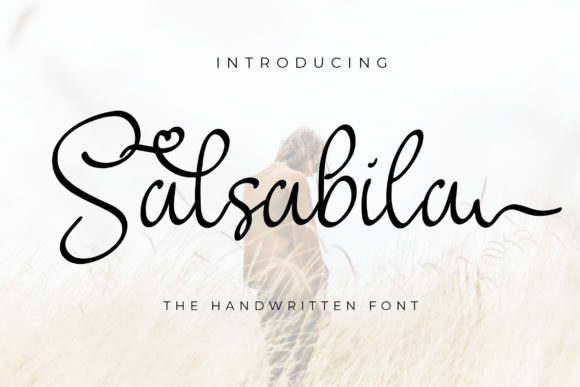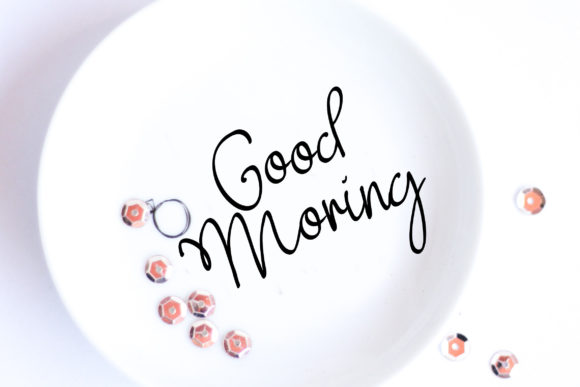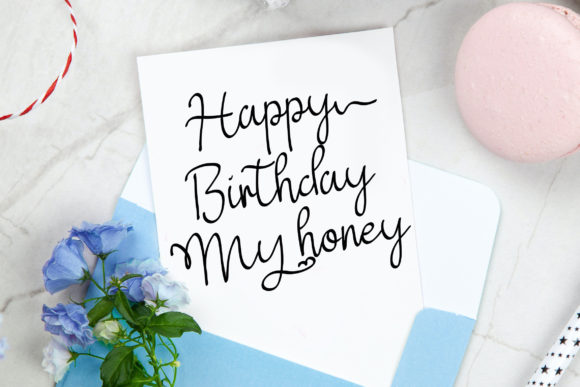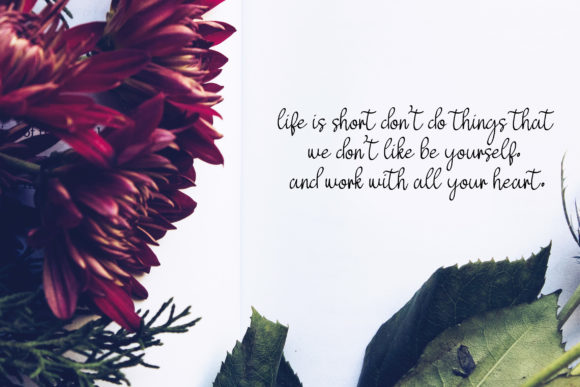
About Salsabila Font
Salsabila is a lovely and adorable script font. It can be added to plenty of creations that require a personalized, romantic touch. Add this cursive and well balanced font to your designs and you will love the final outcome. Salsabila is PUA encoded which means you can access all of the glyphs and swashes with ease!